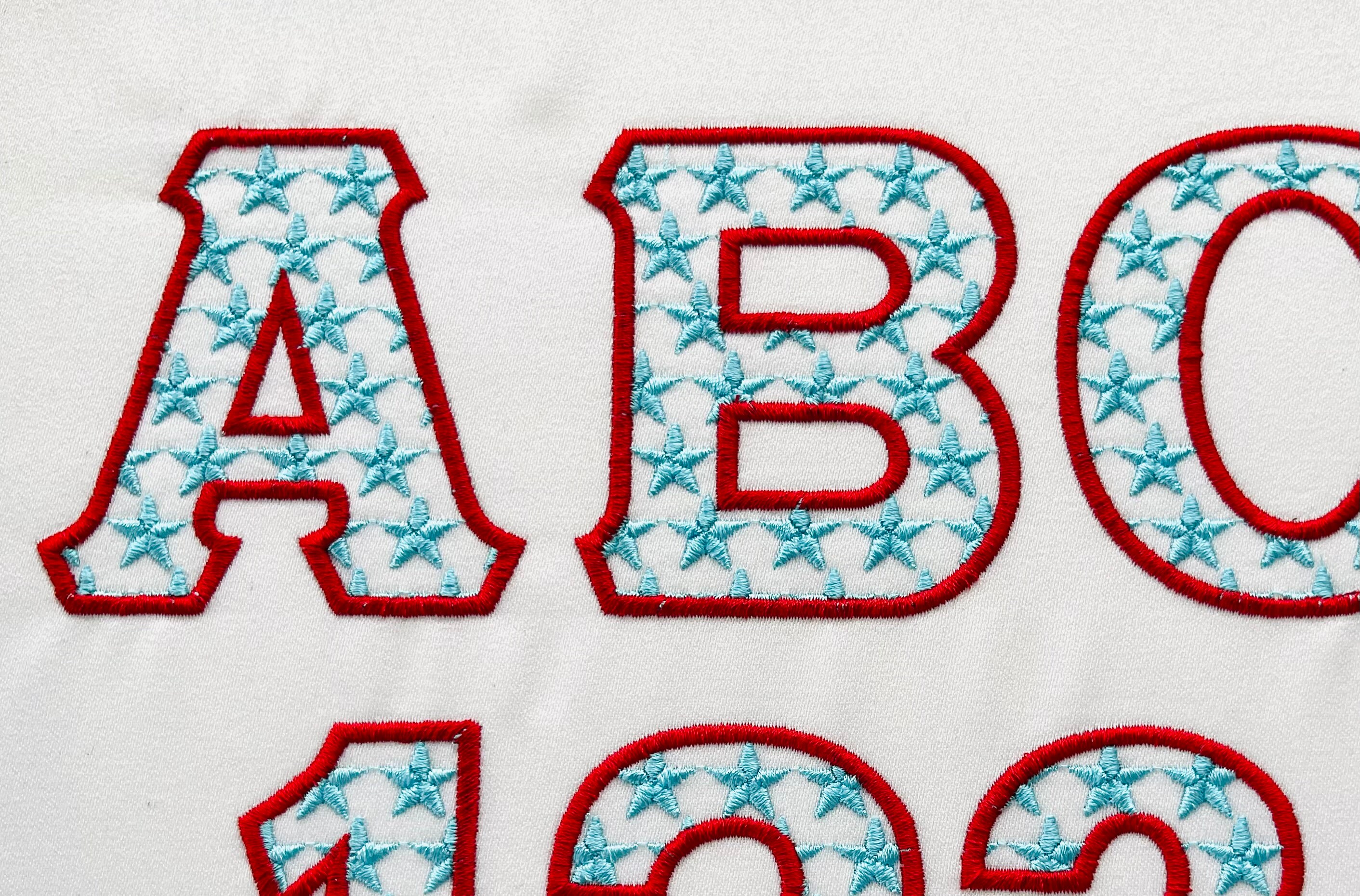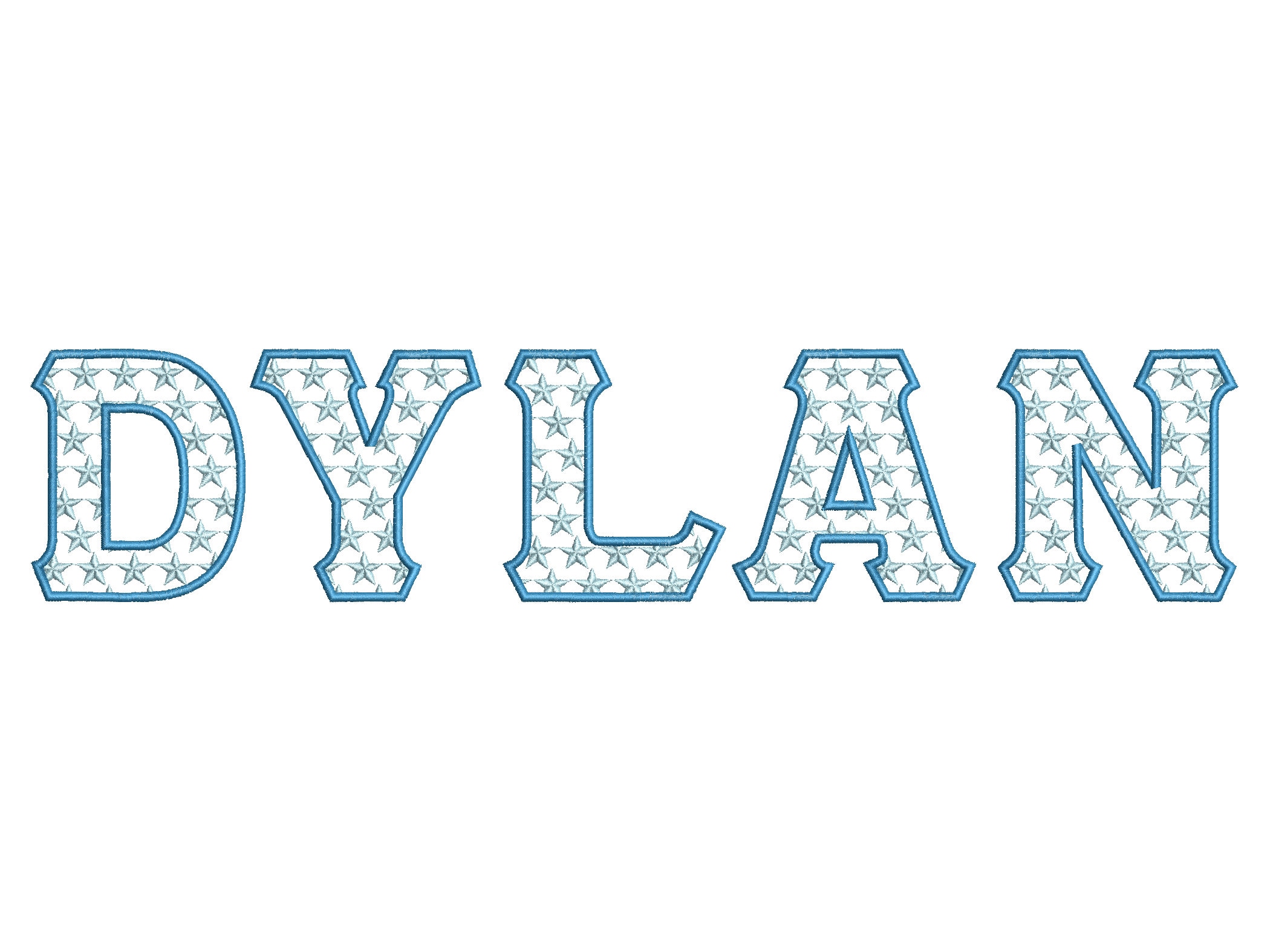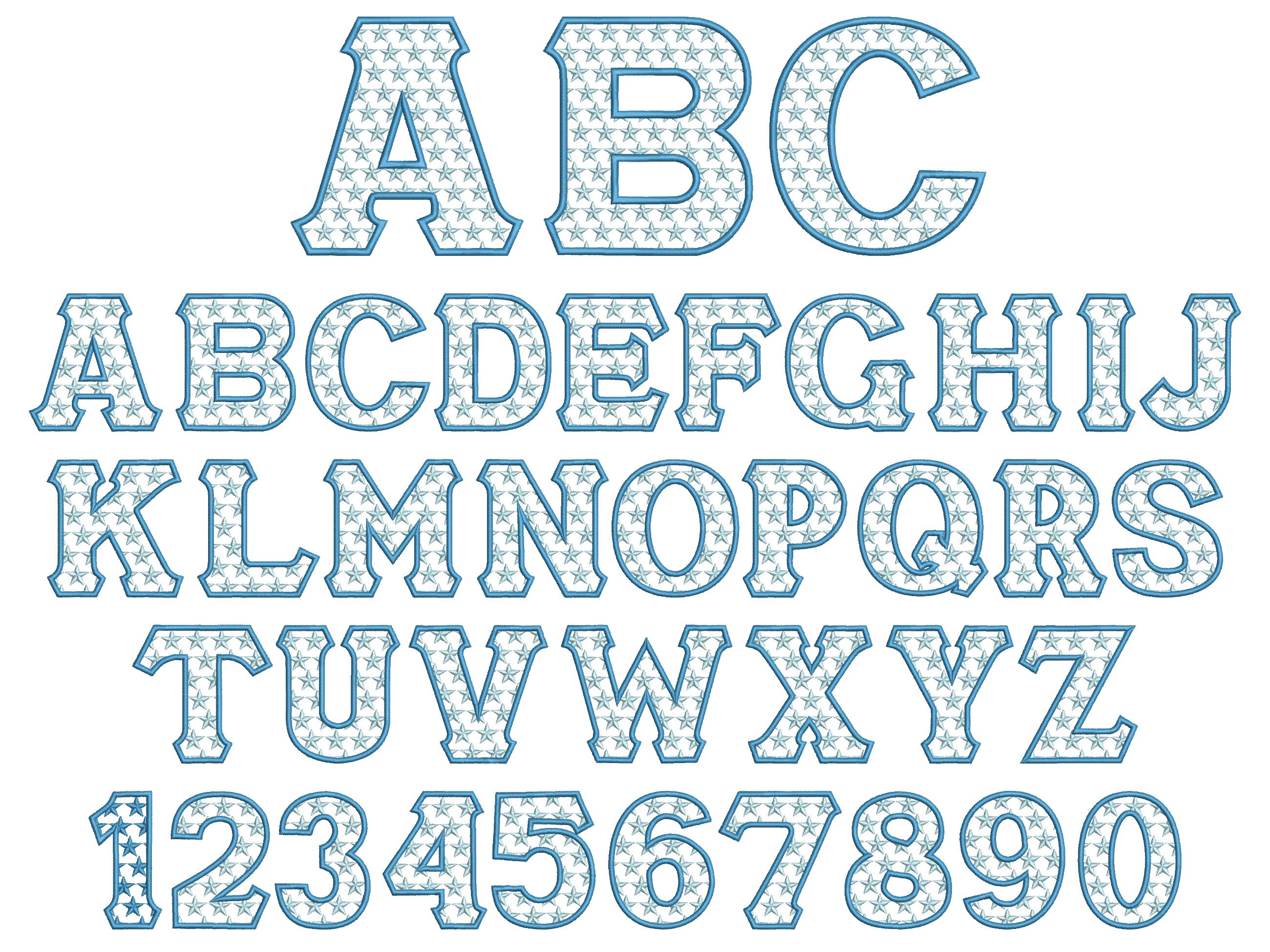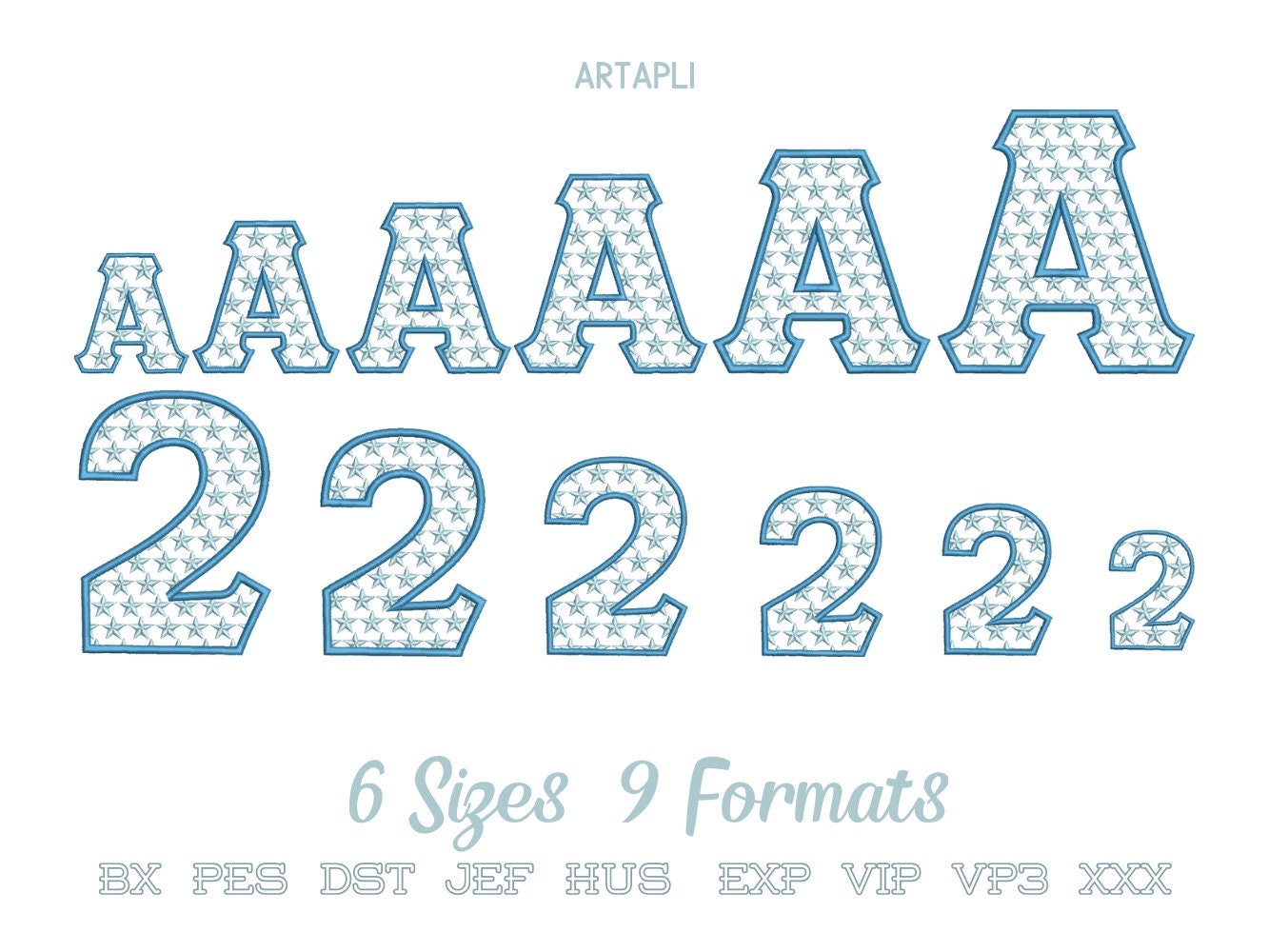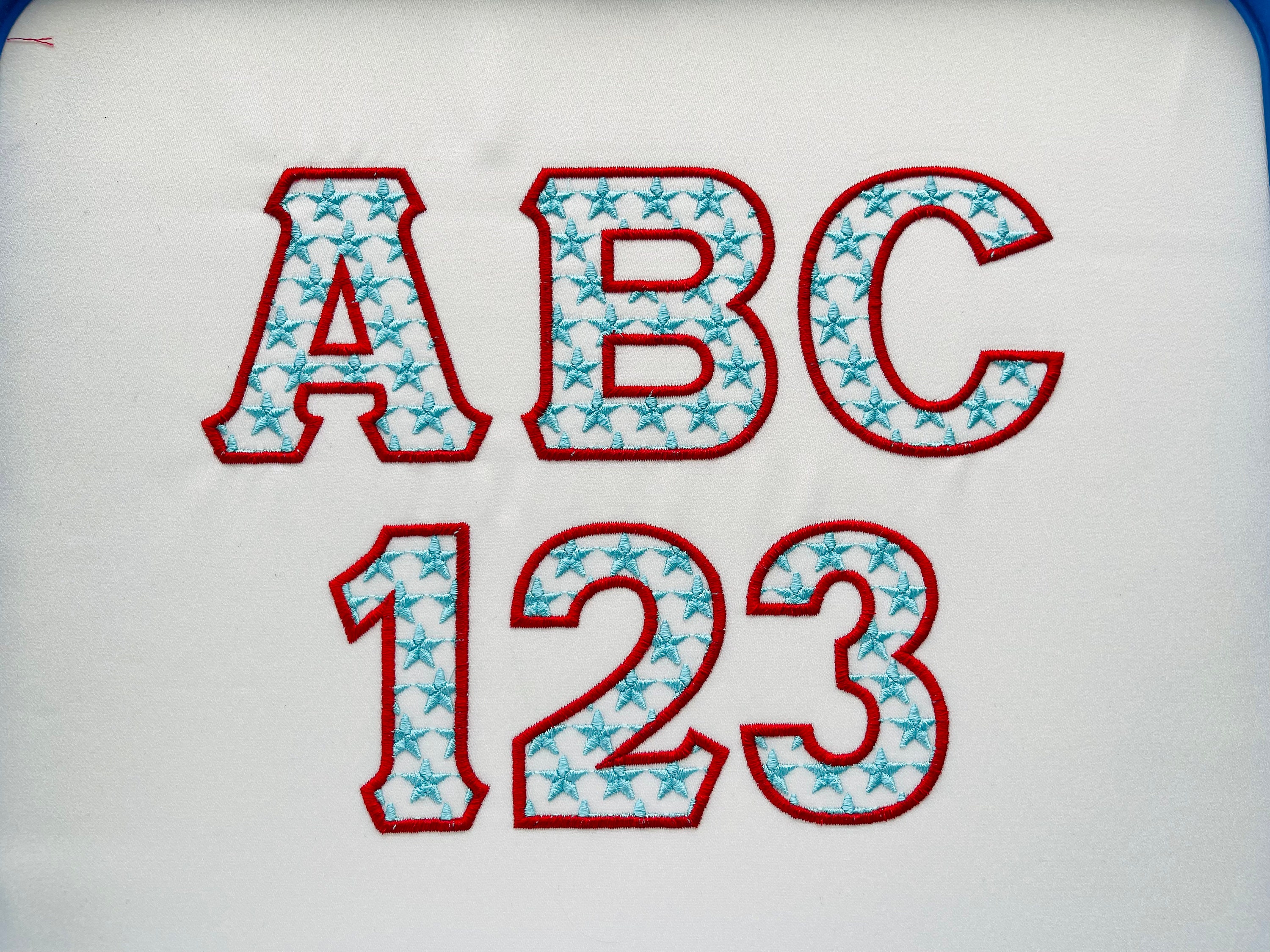
Starry Font 2 Color Monogram Star Pattern Font alphabet uppercase and numbers machine embroidery designs in assorted sizes BX included
Whole alphabet
This is a light stitch Font, star pattern and outline, the background fabric looks through. Stunning effect!